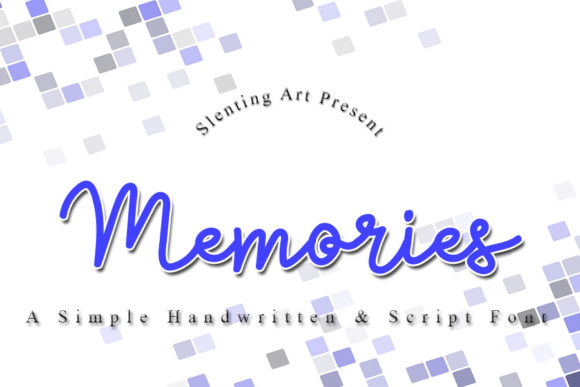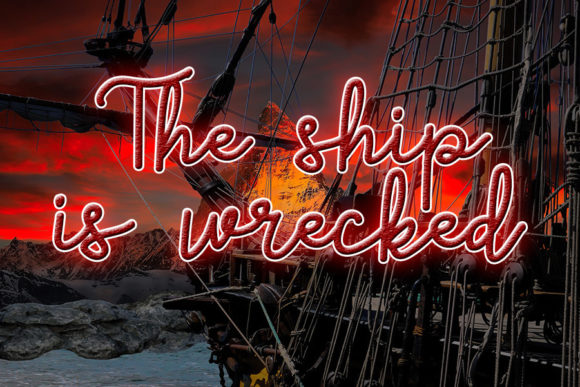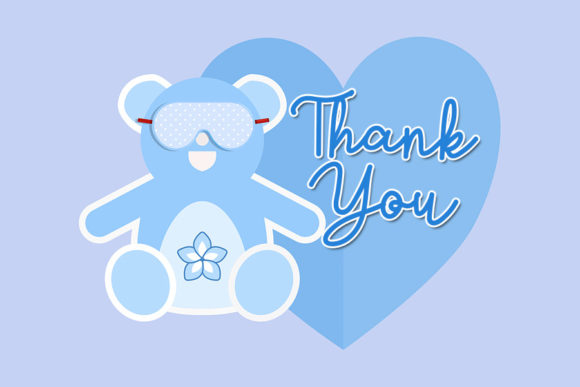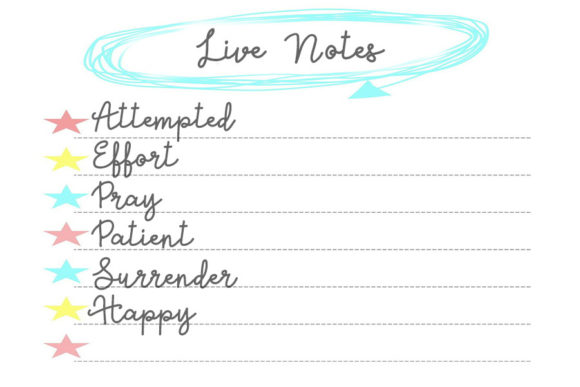
About Memories Font
Memories is a versatile and well-balanced handwritten font that brings warmth, romance, and a touch of joy to your project ideas. With its flexibility and timeless appeal, this font has the power to transform your designs into memorable works of art.
The beauty of Memories lies in its ability to evoke emotions and create a sense of nostalgia. Its delicate and flowing letterforms capture the essence of handwritten elegance, adding a personal and heartfelt touch to your designs. Whether you’re working on wedding invitations, greeting cards, or any other project that requires a romantic and sentimental feel, Memories is the perfect choice.
This font’s versatility allows it to adapt to various design concepts and themes. From whimsical and playful to sophisticated and elegant, Memories can effortlessly complement and enhance the overall aesthetic of your designs. Its warm and inviting nature invites viewers to connect with your artwork and creates a memorable experience.
Explore the endless possibilities of Memories by experimenting with different variations and styles. Its flexibility allows you to customize and adapt the font to suit your unique creative vision. Add swashes, ligatures, or embellishments to further enhance the beauty and expressiveness of your designs.
The enjoyment of using Memories goes beyond its aesthetics. This font is designed with ease of use in mind, ensuring that you can fully access and utilize its features. Its PUA encoding allows you to effortlessly access all of the glyphs and swashes, giving you the freedom to create visually stunning and unique compositions.
So, let Memories be your creative companion as you embark on your design journey. Allow its warmth, romance, and joy to inspire you and infuse your projects with a touch of magic. With Memories, you have the power to create timeless and unforgettable works of art that will leave a lasting impression on your audience.
Unleash your creativity, have fun, and let Memories be the bridge between your imagination and the remarkable designs you create.